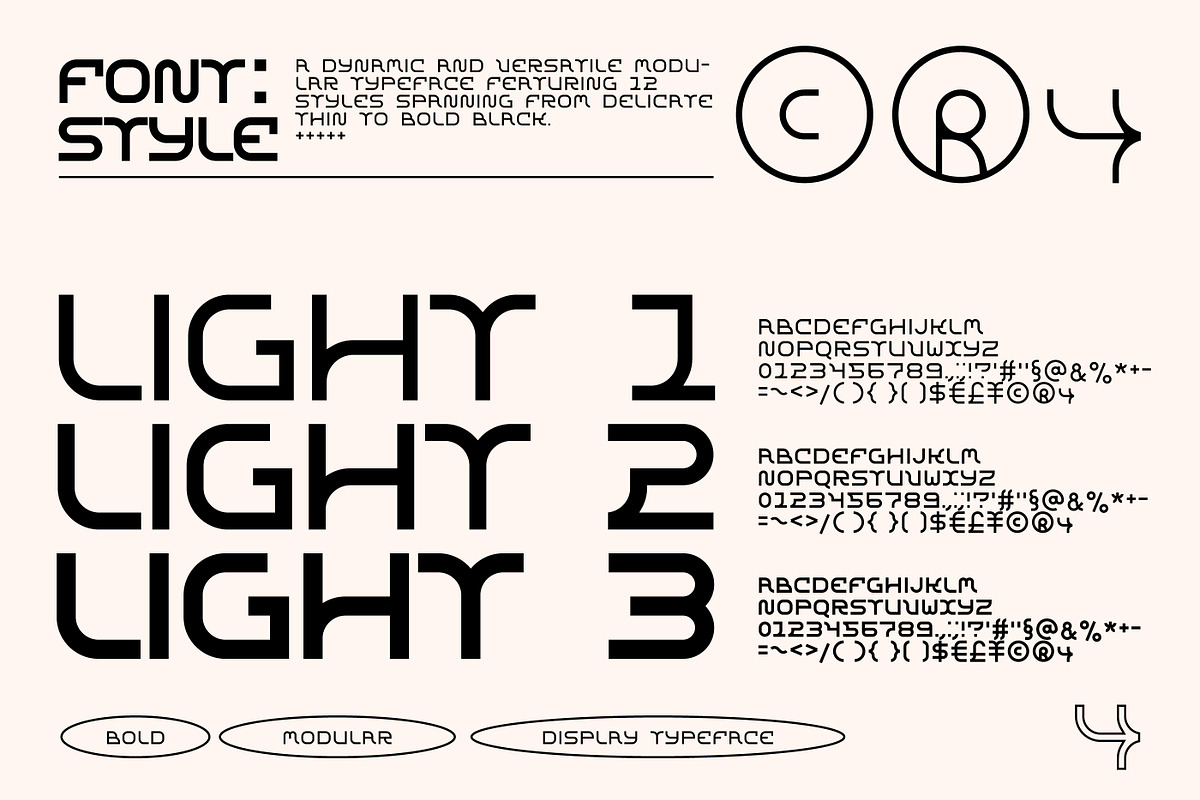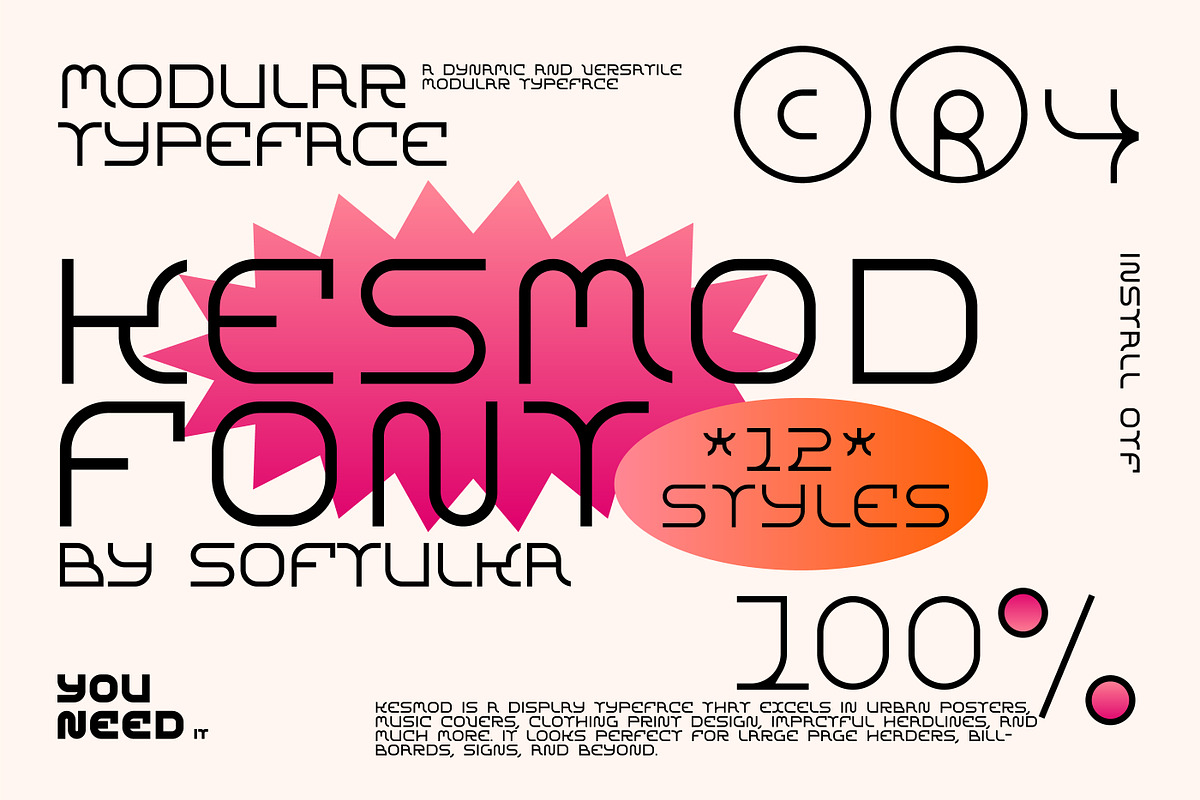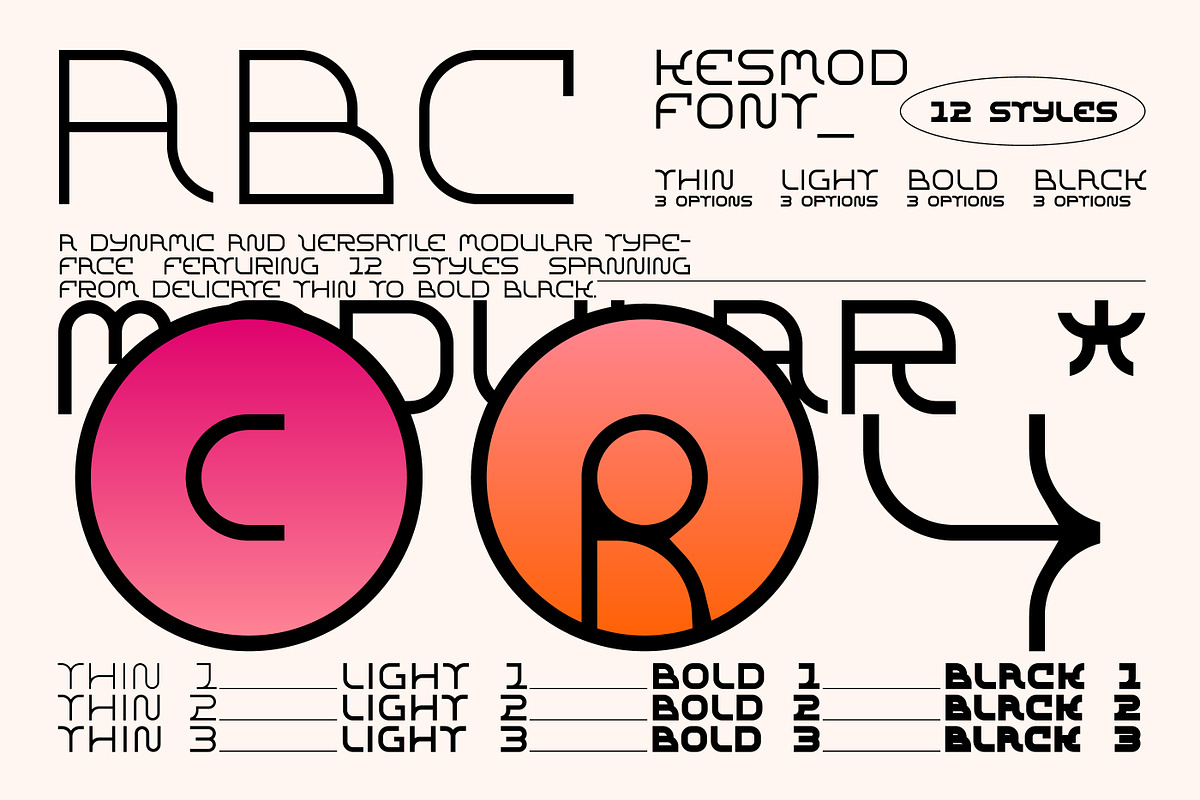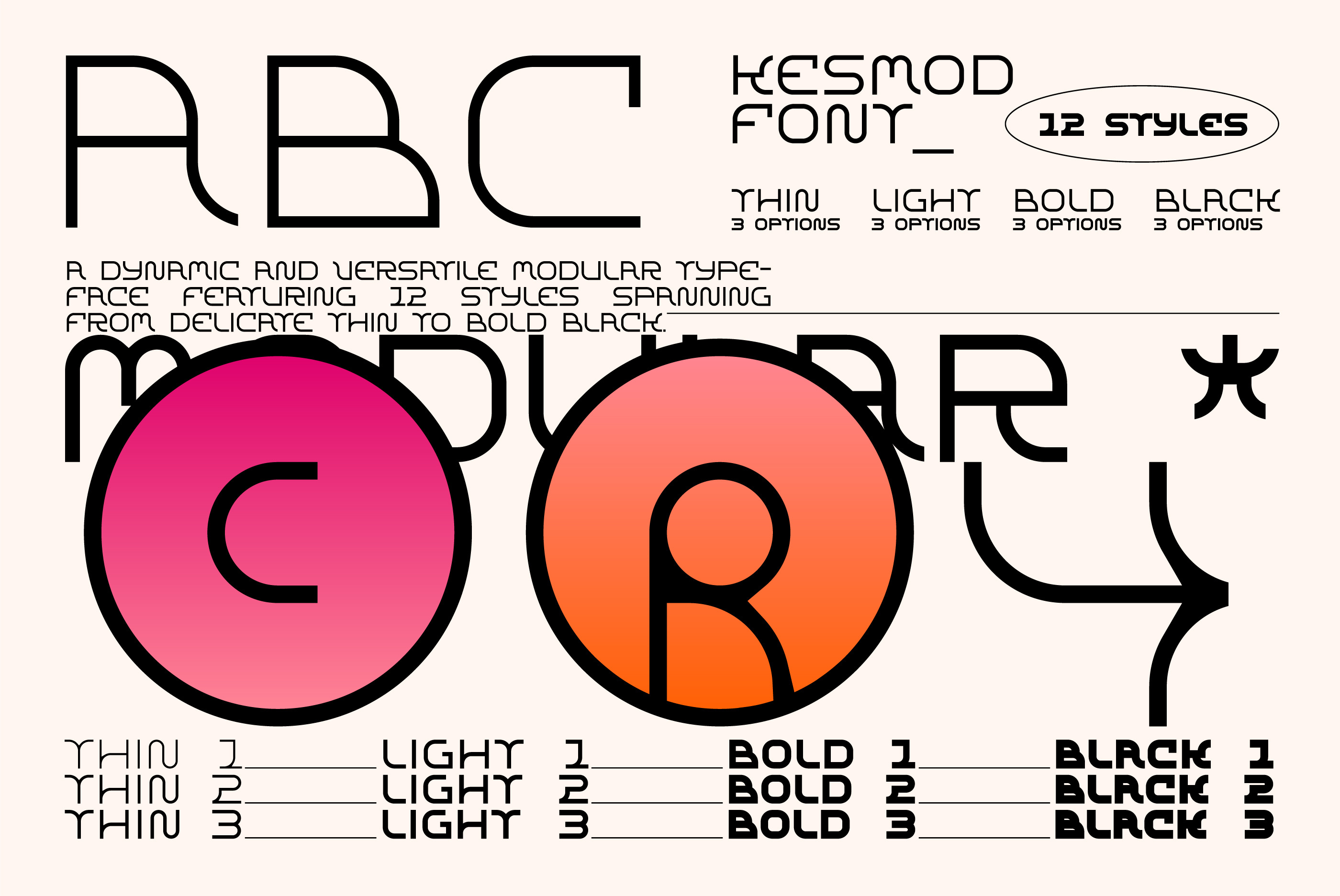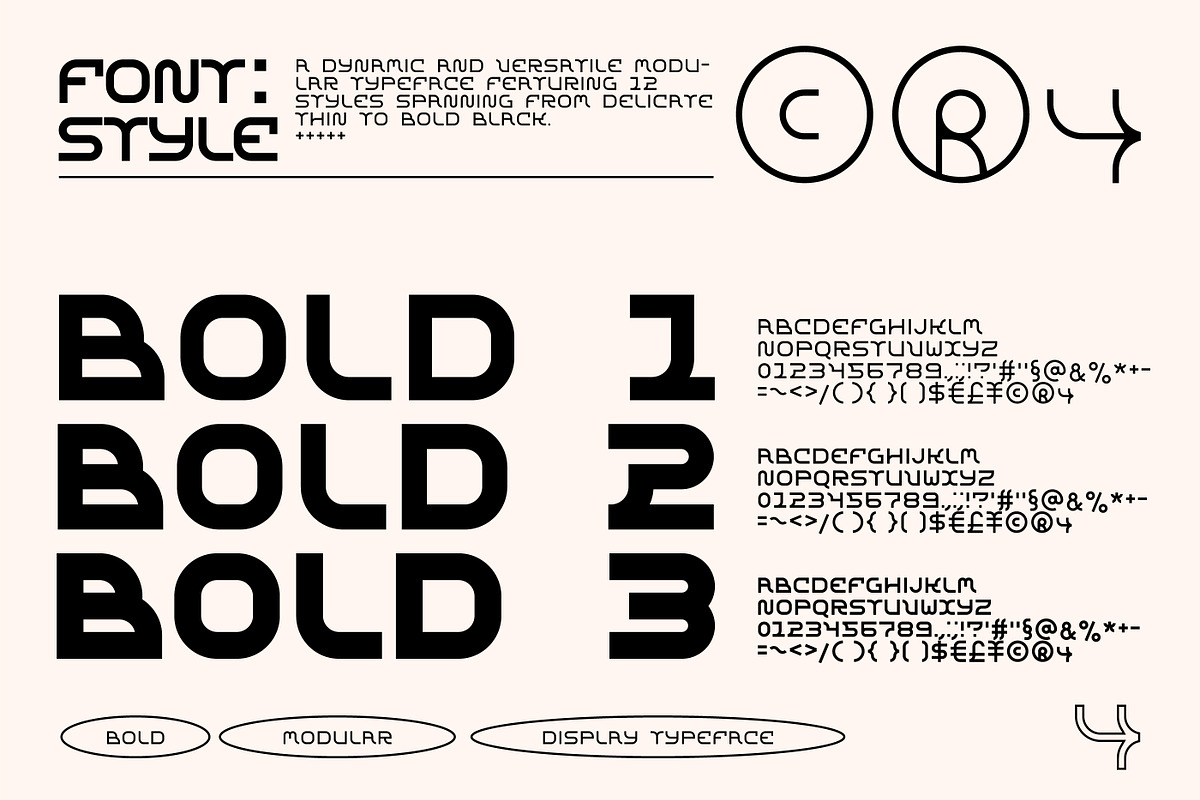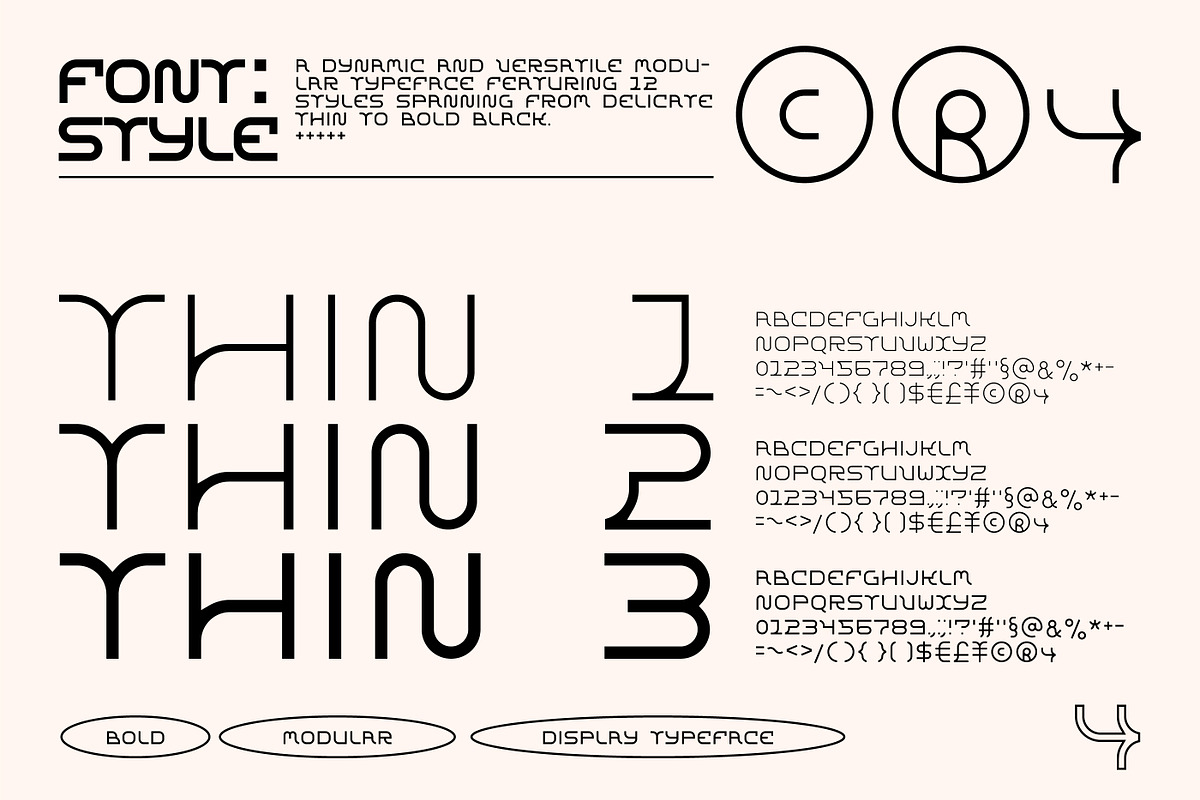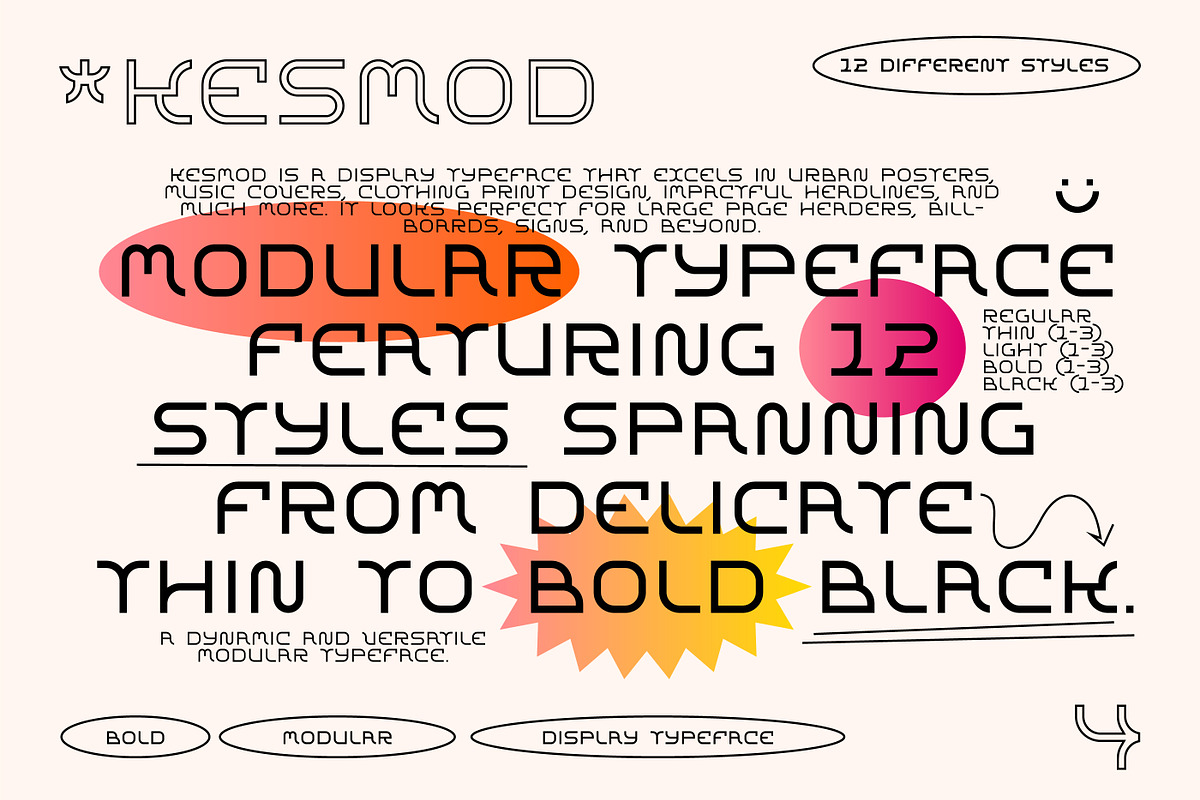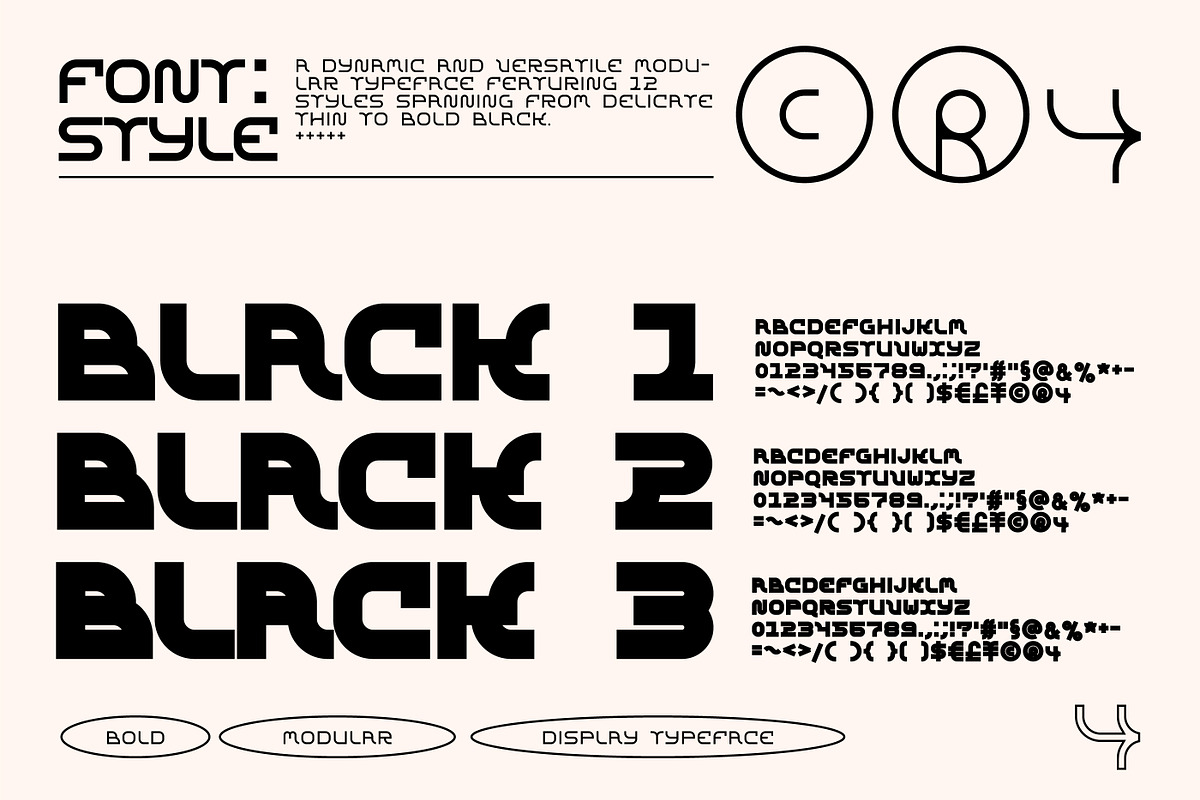
Kesmod Font - 12 styles
Kesmod is a clean display typeface that excels in urban posters, music covers, clothing print design, impactful headlines, large page headers, billboards, signs, bold headlines, modern acid typography, Brutal Bold design, and much more. This modular Sans Serif typeface features 12 styles spanning from delicate thin to bold black, which really can help in modern experimental design.